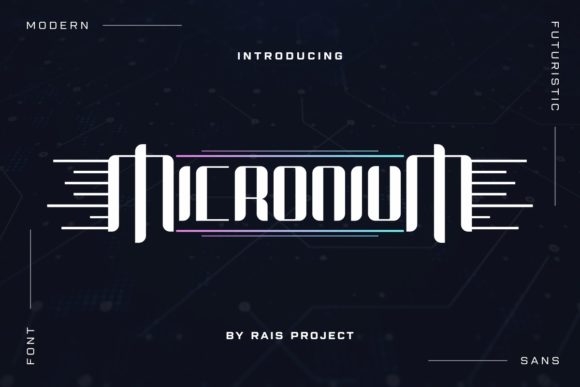
Prepare to embark on a typographic journey that transcends the ordinary with Micronium Font, the epitome of cutting-edge style for your technological endeavors. This display font exudes a captivating aura of innovation and modernity, meticulously crafted to elevate your designs to new heights.
Micronium Font is not merely a collection of letters; it is an expression of your brand's technological prowess. Each stroke and curve embodies the dynamism and innovation that define your business, making it the perfect choice for logos, branding, and any design that seeks to convey a sense of progress and sophistication.
With its sharp angles and sleek lines, Micronium Font effortlessly complements designs related to business, gaming, technology, and beyond. Its versatility extends across a wide range of applications, ensuring that you can seamlessly integrate it into your creative vision and make a lasting impression.
Whether you're crafting a sleek logo for your tech startup or designing a futuristic website, Micronium Font is the font that will ignite your creativity and propel your brand into the digital stratosphere.
Micronium Font is more than just a font; it is an investment in the future of your brand's visual identity. Its timeless appeal and versatility will ensure that your designs remain relevant and captivating for years to come.
Join the ranks of design innovators who have chosen Micronium Font to power their technological masterpieces. Embrace the future of typography and let your designs soar to new heights of brilliance.